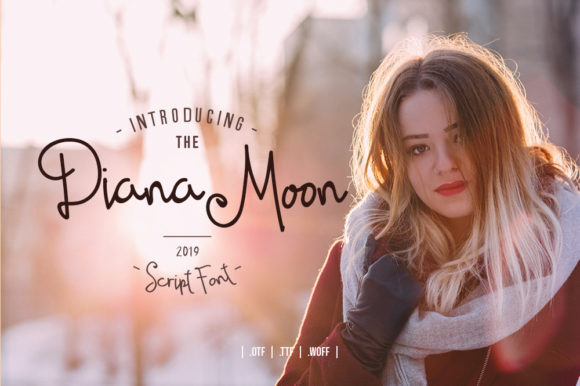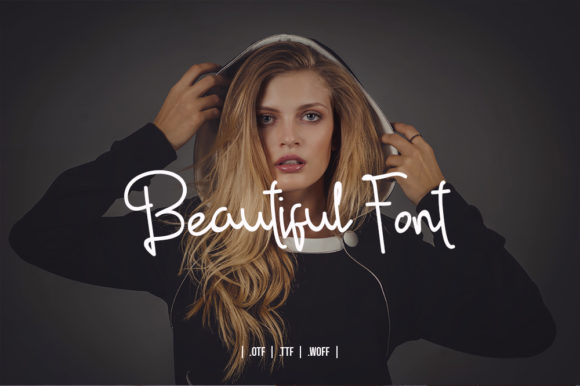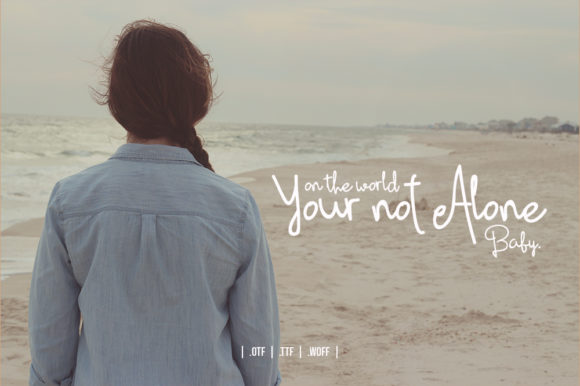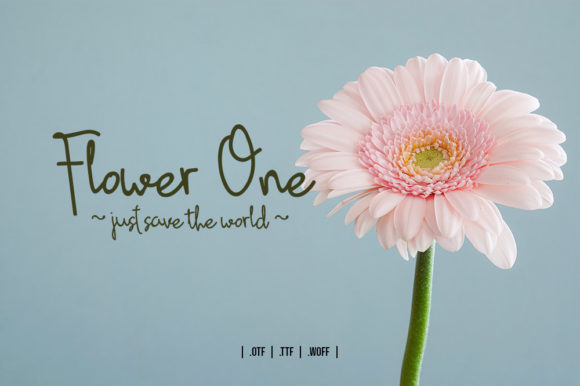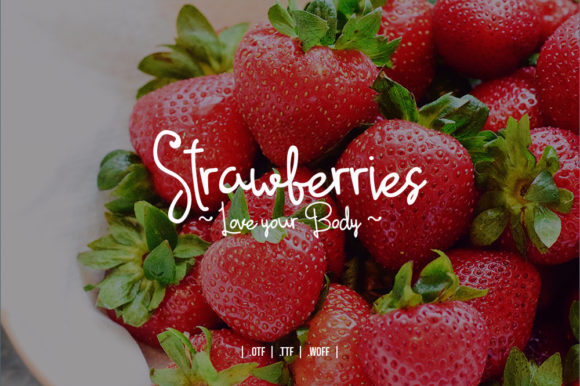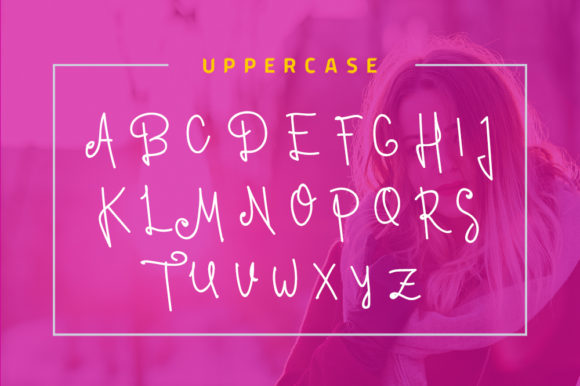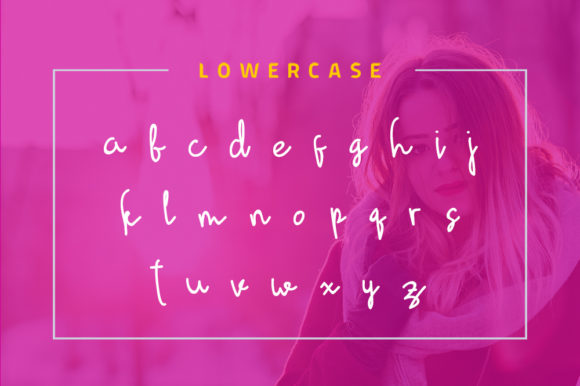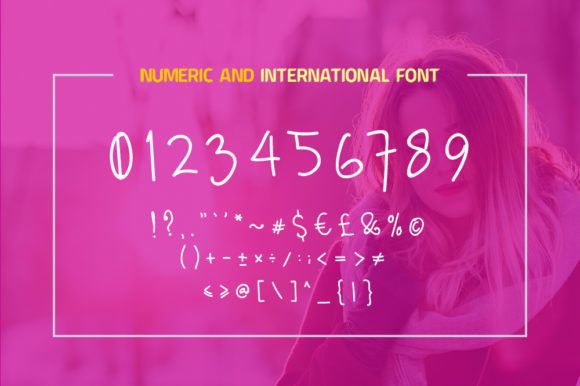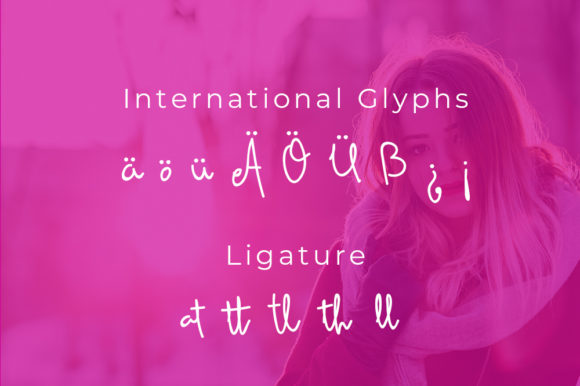
Diana Moon Font
About Diana Moon Font
Diana Moon is a stylish and modern handwritten font with a beautiful feel. Elegant, yet casual, it’s the perfect font to add a unique spark to any design project.